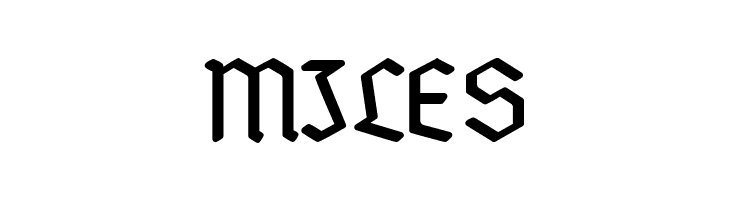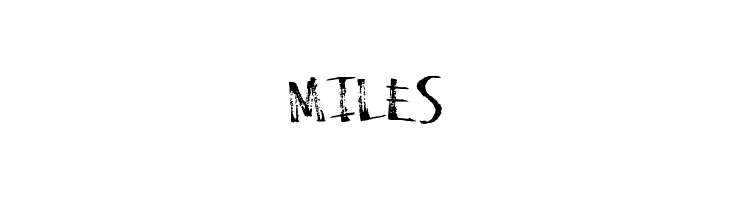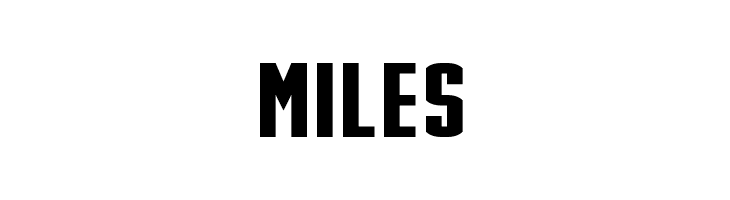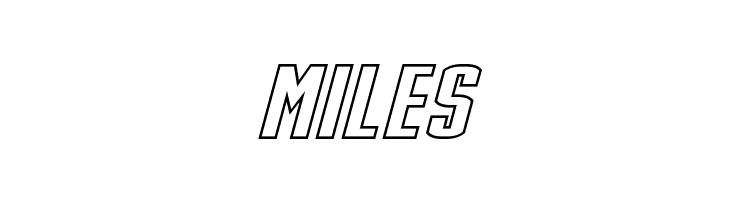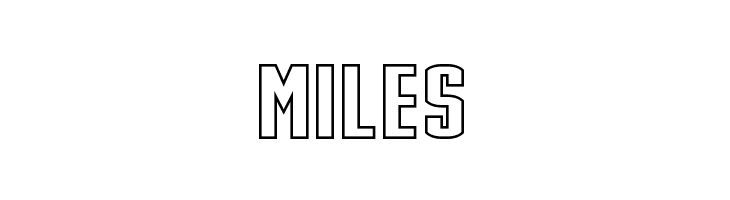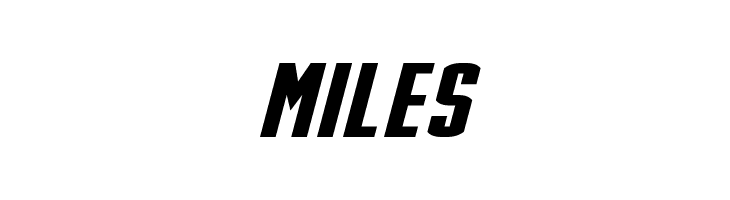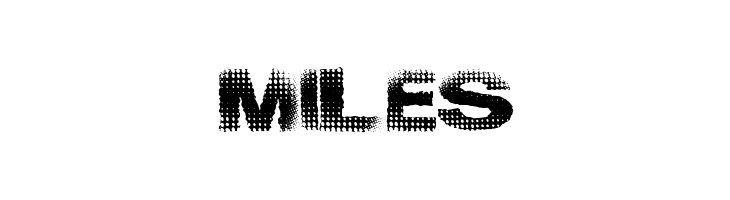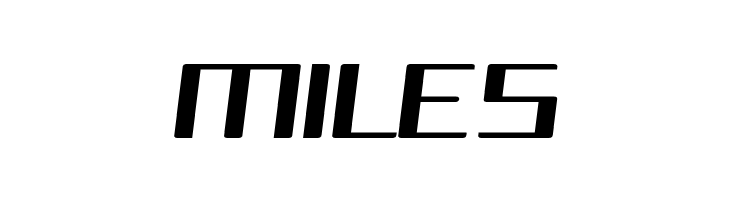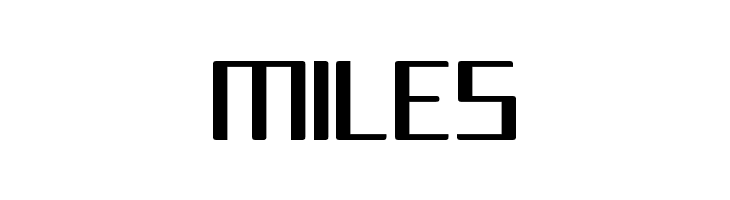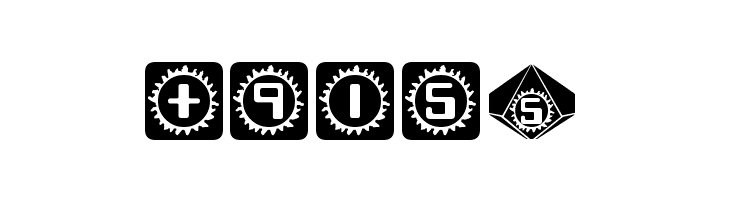
A bold, geometric font with a modern, digital feel.
A geometric, modern font with square, angular shapes and bold strokes.
A geometric, modern font with consistent stroke width and a digital aesthetic.
A modern, oblique, and expanded font with a futuristic and dynamic design.
A playful, hand-drawn font with bold, irregular strokes.
A bold, oblique font with a brush-like, handwritten style.
An oblique outline font with a playful and dynamic style.
A playful, hand-drawn font with a squared outline and whimsical style.
A bold, geometric font with sharp, angular edges and consistent thickness.
A decorative font with a square, grid-like pattern creating a pixelated effect.
A pixelated, geometric font with a retro digital aesthetic.
A geometric and angular font with a modern, technical aesthetic.
A lively, handwritten script font with smooth, rounded strokes and a playful touch.
A bold, distressed font with a grunge, hand-drawn style.
A distressed, grunge-style font with a hand-drawn appearance.
A distressed, vintage typewriter-style serif font with a textured, stamp-like appearance.
A bold, angular font with a modern blackletter style.
A bold, decorative font with vintage flair and ornate details.
A bold, decorative font with vintage-inspired serifs and unique embellishments.
A decorative font with numbers and symbols in geometric shapes with starburst patterns.
A bold, decorative font with a dotted texture and strong outlines.
A bold, modern font with thick, block-like characters.
A bold, modern font with thick, block-like letters and a strong, authoritative presence.
A bold, italic font with a dynamic and impactful style.
A bold, hollow, geometric font with strong outlines and modern appeal.
A bold, hollow, italic font with sharp angles and clean lines.
Bold, italicized font with a dynamic and modern style.
A dotted, pixelated font with a modern and digital aesthetic.
A bold, halftone-patterned font with a dynamic and textured appearance.